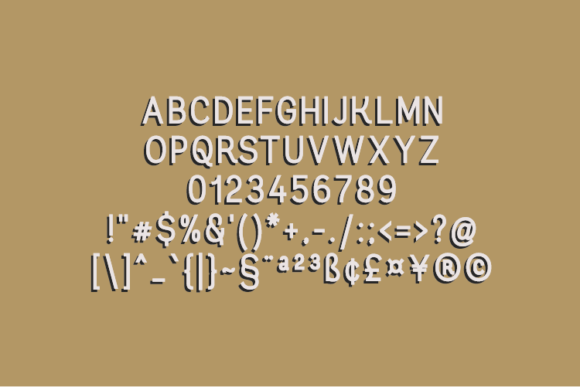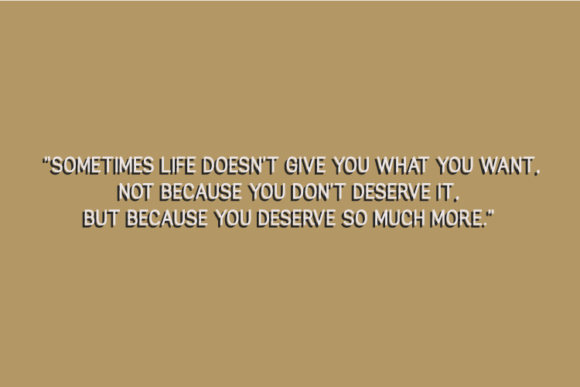
Introduction to Seirona Font
As a designer, you know that the right font can make or break a project. I still remember the moment I stumbled upon the perfect font for a client’s logo, and how it instantly transformed the entire design. That’s why I’m excited to introduce you to the Seirona Font, a smooth sans serif font that will elevate your designs to the next level.
What sets Seirona Font apart from other fonts is its versatility. It works beautifully on a transparent background, adding a touch of elegance to any design. Whether you’re working on a creative project or need a font for a corporate design, Seirona Font is sure to be a valuable asset in your design arsenal.
Key Features of Seirona Font
- Unique, modern design aesthetic makes it perfect for contemporary and futuristic-themed creative projects
Honest Review: Seirona Font
I recently stumbled upon the Seirona Font, and I’m excited to share my thoughts on this design resource. As a designer, I’m always on the lookout for high-quality fonts that can elevate my creative projects.
What works well with the Seirona Font is its versatility. It’s a great addition to any design project, from branding to editorial content. I love how it can be used in both modern and traditional contexts, making it a versatile design resource. ✨
- High-quality design: The Seirona Font is carefully crafted to provide a professional look and feel.
One limitation of the Seirona Font is its limited character set. If you’re working on a project that requires a wide range of characters, you may find that this font falls short. ⚠️
Overall, I’m impressed with the Seirona Font. It’s a high-quality design resource that’s perfect for designers who want to add a touch of elegance to their creative projects. Whether you’re working on a branding project or creating editorial content, the Seirona Font is definitely worth considering.
Tips for Getting the Most Out of Seirona Font
Use the transparent background feature to create unique and eye-catching designs. Experiment with different font sizes and styles to add depth and visual interest to your project.
Seirona Font is perfect for creative projects such as logos, branding, and marketing materials. It’s also great for web design, social media graphics, and presentations.